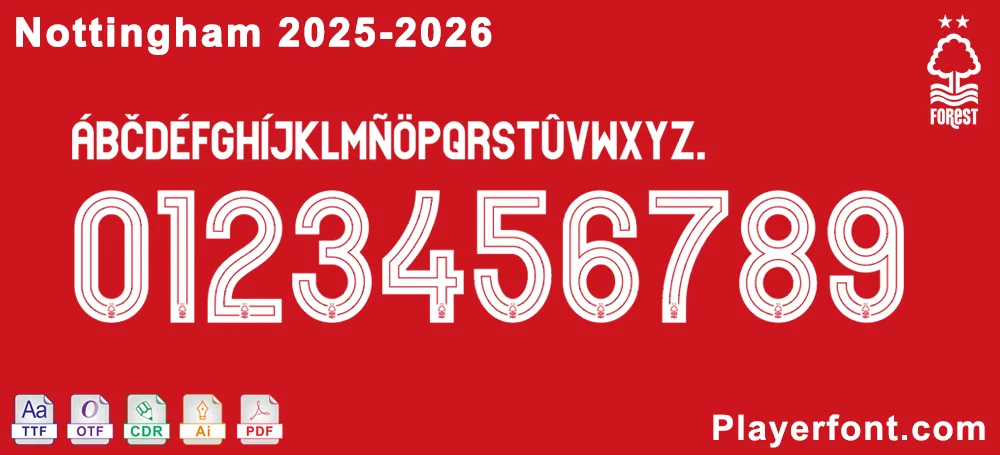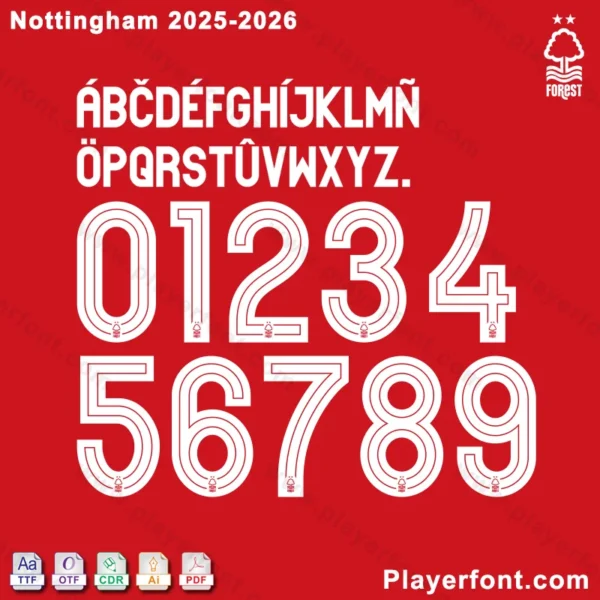
Nottingham Forest 2025-2026 Font Download
Immerse your designs in the legacy of The City Ground with the official Nottingham Forest 2025-2026 Font. This is the authentic typeface used by the club for its jerseys, official communications, and marketing materials for the new season.
Official Nottingham Forest 2025-2026 typeface preview showing full alphabet, numbers, and season year.
Complete character set preview for the official Nottingham Forest 2025-2026 font.
Close-up preview of the Nottingham Forest 2025-2026 font characters, numbers, and typography style.Nottingham Forest 2025-2026 Font Download